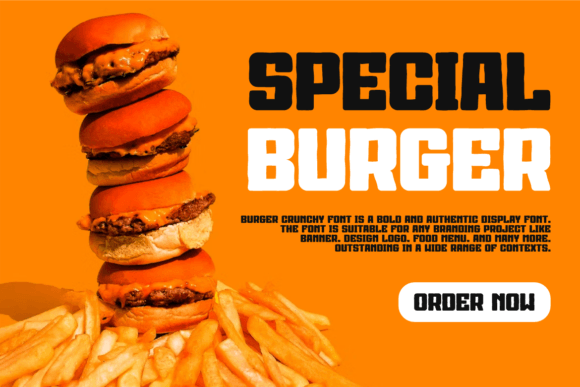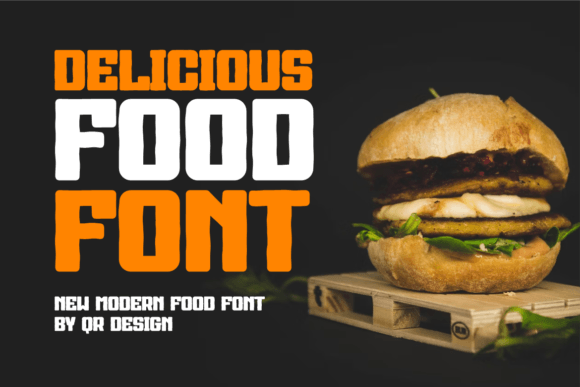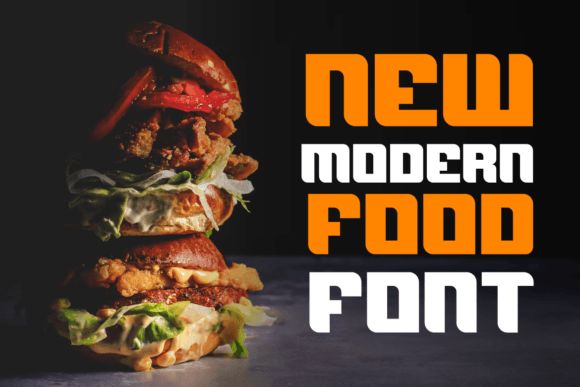
Burger Crunchy Font
Burger Crunchy is a fun and playful sans serif font. Add this cool font to each of your creative ideas and notice how it makes them stand out!